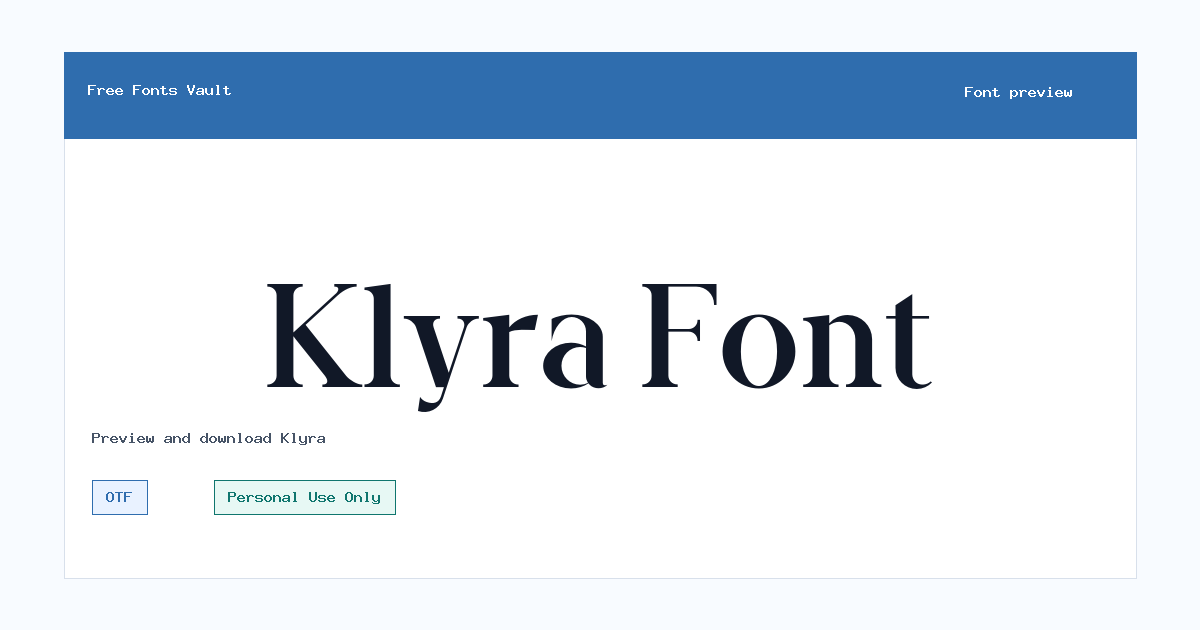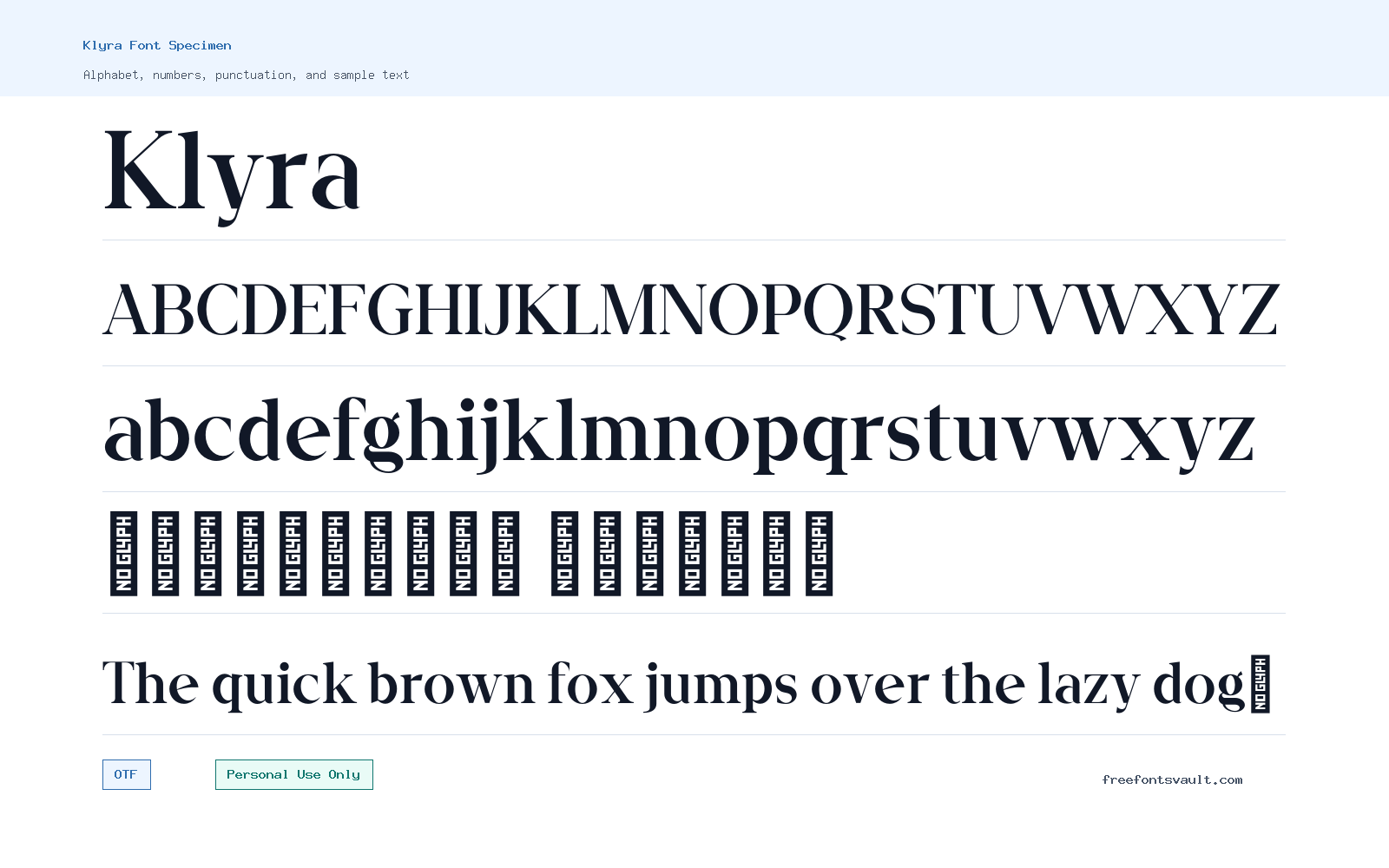
Klyra
About Klyra Font
Klyra works best when you need a serif voice for short, polished text rather than long blocks of reading copy. Use the preview box to test it in titles, names, invitations, quote graphics, mood boards, and simple branding drafts. Since the download is a regular-weight style, it is most useful for layouts where one clean text style is enough. Try it at larger sizes first so you can judge the shape, spacing, and overall tone before building a full design around it.
For practical use, keep Klyra focused on display text. Test uppercase and lowercase words, then check how it handles punctuation, numbers, and repeated letters. If you are designing a poster, social graphic, label concept, or personal project cover, pair it with a quiet sans serif for supporting text so Klyra can stay as the main visual accent. Avoid using it for dense paragraphs until you have checked readability at the exact size you plan to use.
- Serif style suited to headings, short phrases, display text, and personal design drafts.
- Personal invitations, title graphics, quote layouts, and mood-board typography.
- Poster concepts, social media images, name cards, and non-commercial branding mockups.
What style of font is Klyra?
Klyra is presented as a serif font in a regular weight. It is a better fit for display text and short design phrases than for long reading passages.